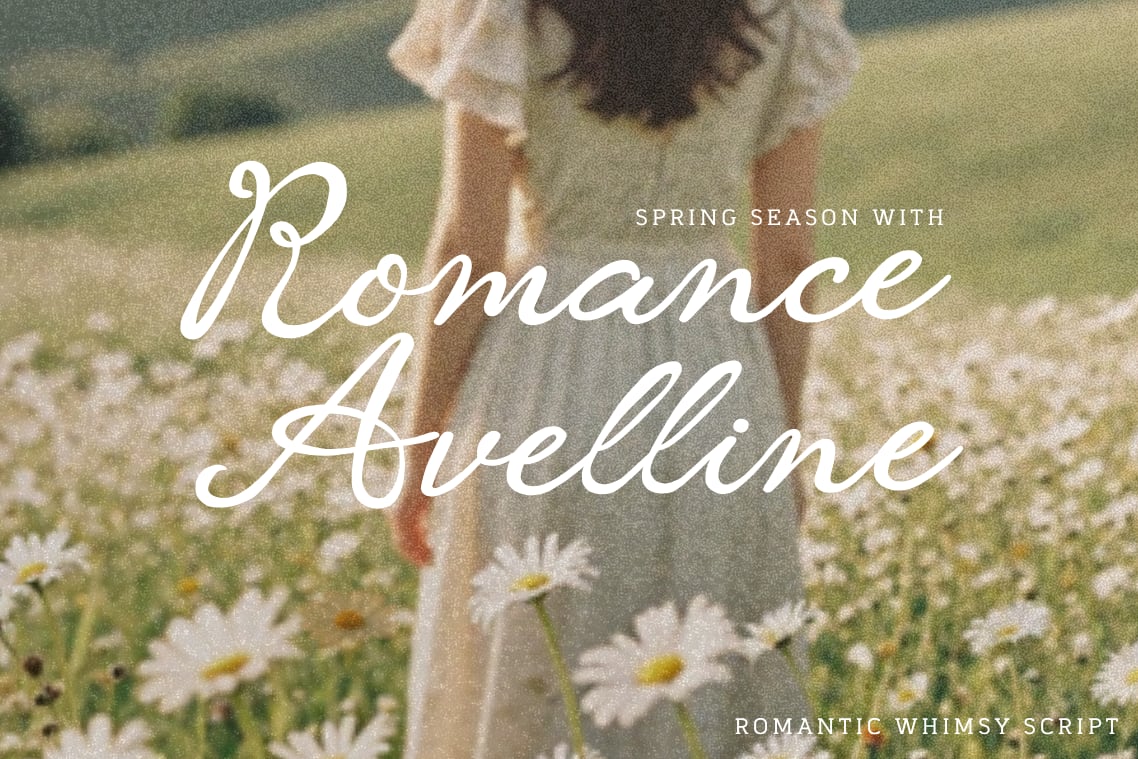
Perfect for wedding invitations, feminine branding, beauty products, flower shops, greeting cards, boutique packaging, social media content, and lifestyle projects, Romance Avelline creates an elegant visual presence while maintaining a warm handcrafted feel. Its playful yet refined character makes it ideal for designs that celebrate romance, creativity, and meaningful moments.
Alternate Characters
Ligatures & Stylistic Features
Multilingual Support